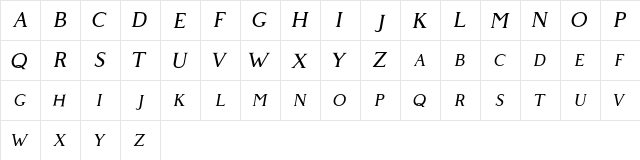
Giveny Free Italic Font Preview
Giveny Free Italic
Giveny Free Italic Font Details
Design Context for Giveny Free Typeface
Giveny Free is a composed and adaptable typeface that performs quietly and consistently across a wide range of design contexts. The dynamic lean of this cut emphasises speed and emphasis in any layout.
Pro Tip: Try Giveny Free for annotation and caption copy alongside an upright companion — the contrast in angle creates a dynamic but ordered typographic system.